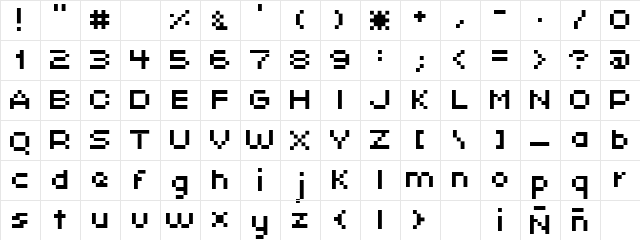
xpaider pixel explosion 01 Regular
Design Context for xpaider pixel explosion 01 Typeface
xpaider pixel explosion 01 is rooted in pixel-grid construction, making it a natural fit for game UI, retro computing aesthetics, and digital nostalgia projects.
Well-suited to indie game interfaces, retro computing aesthetics, and pixel art-adjacent design work.
Pro Tip: Use xpaider pixel explosion 01 at sizes that align with its pixel grid for the sharpest rendering — scaling to non-integer multiples can introduce unwanted blur.